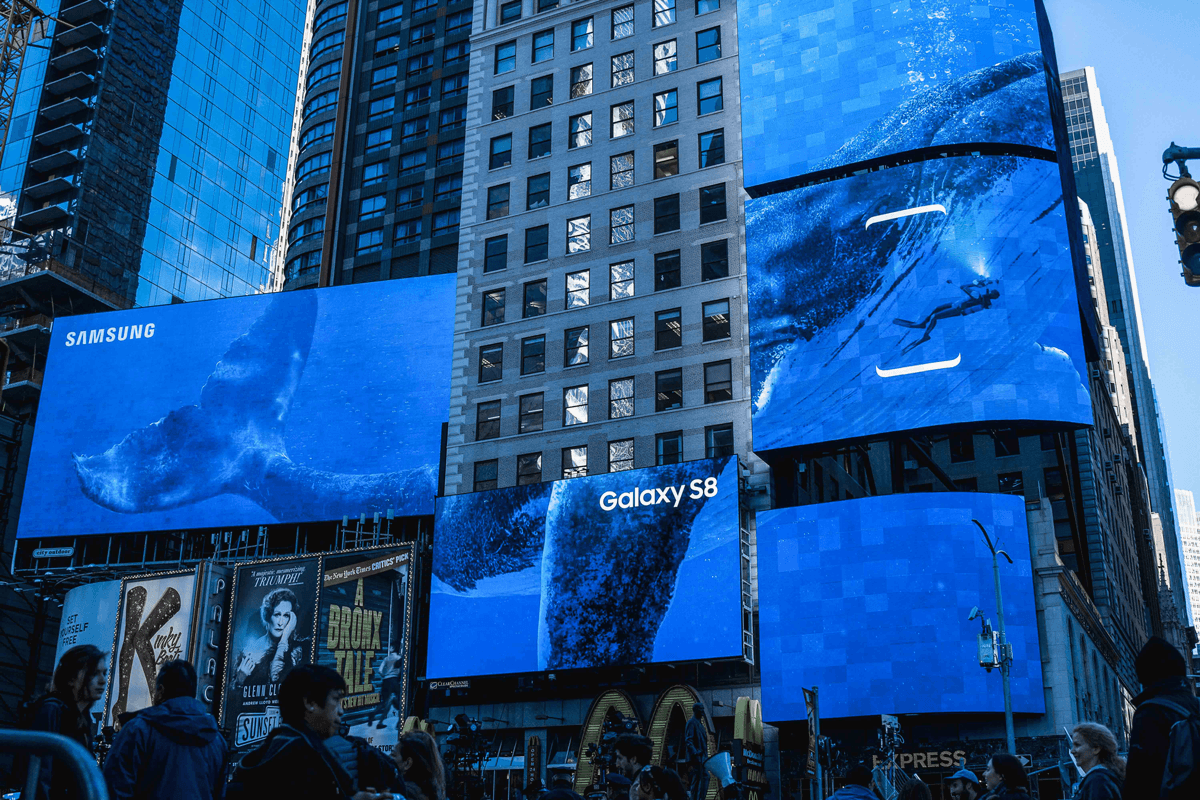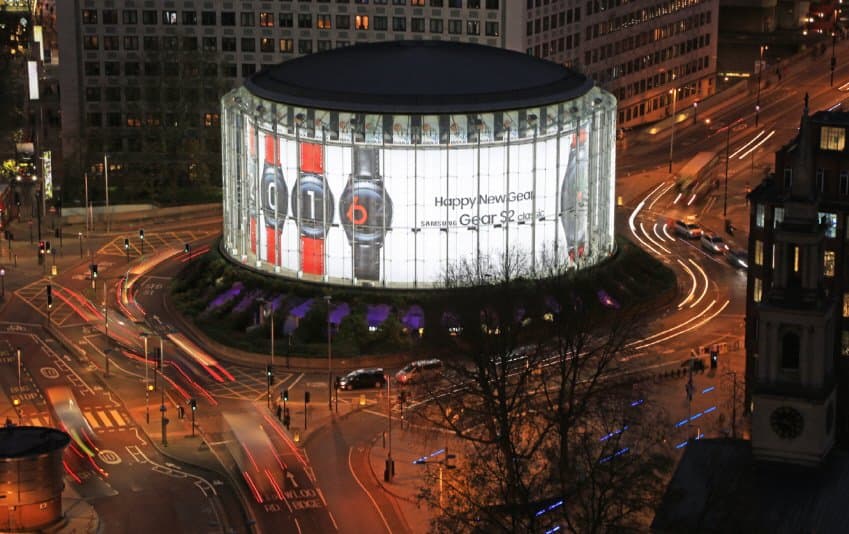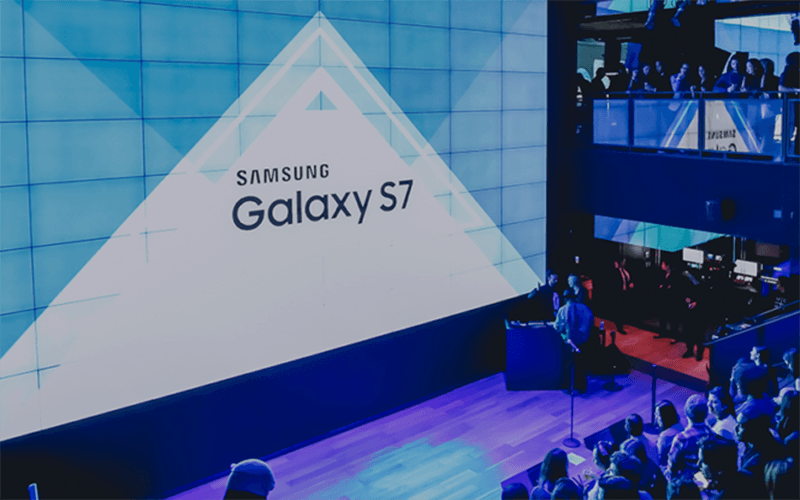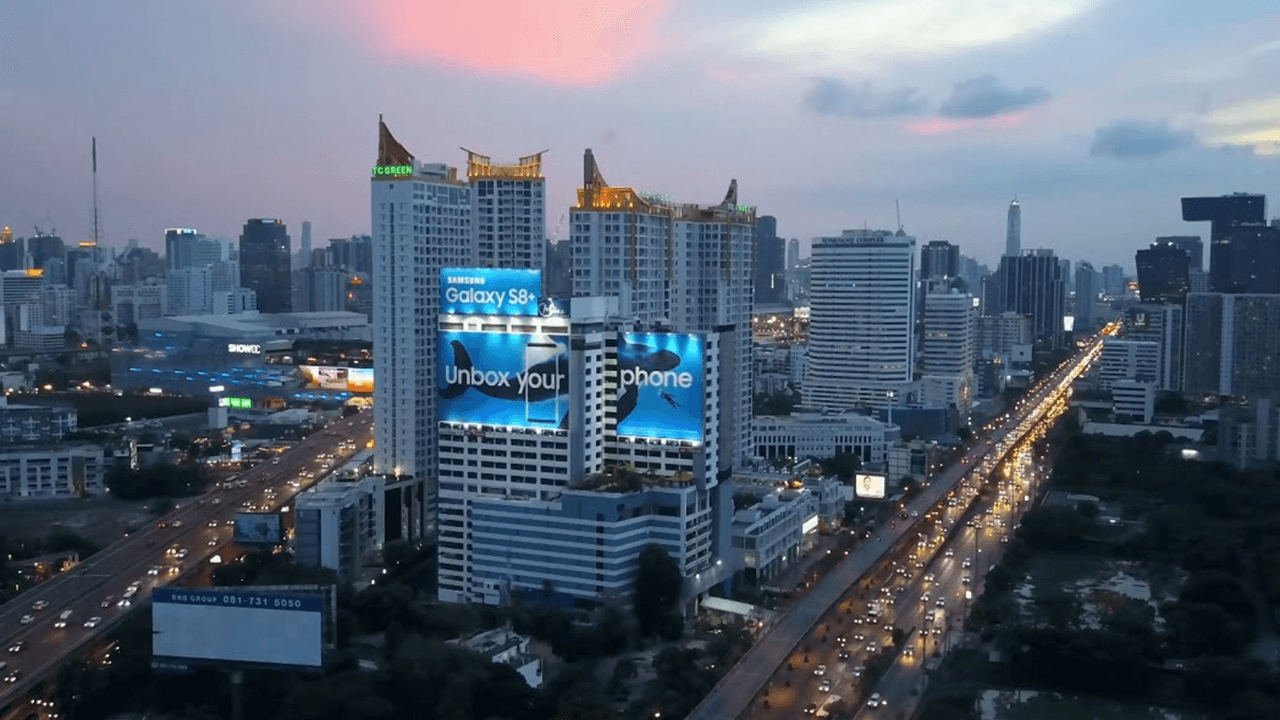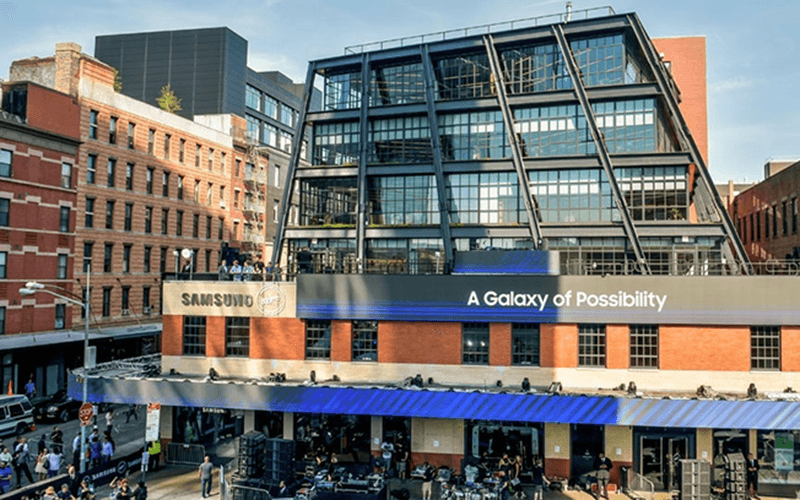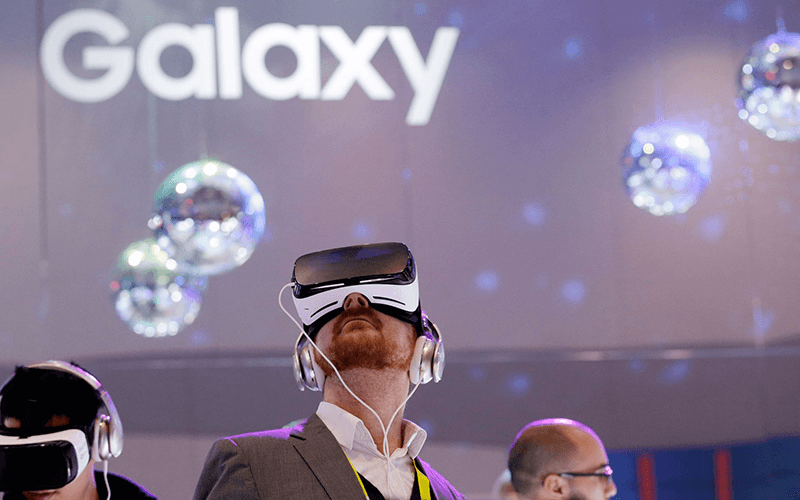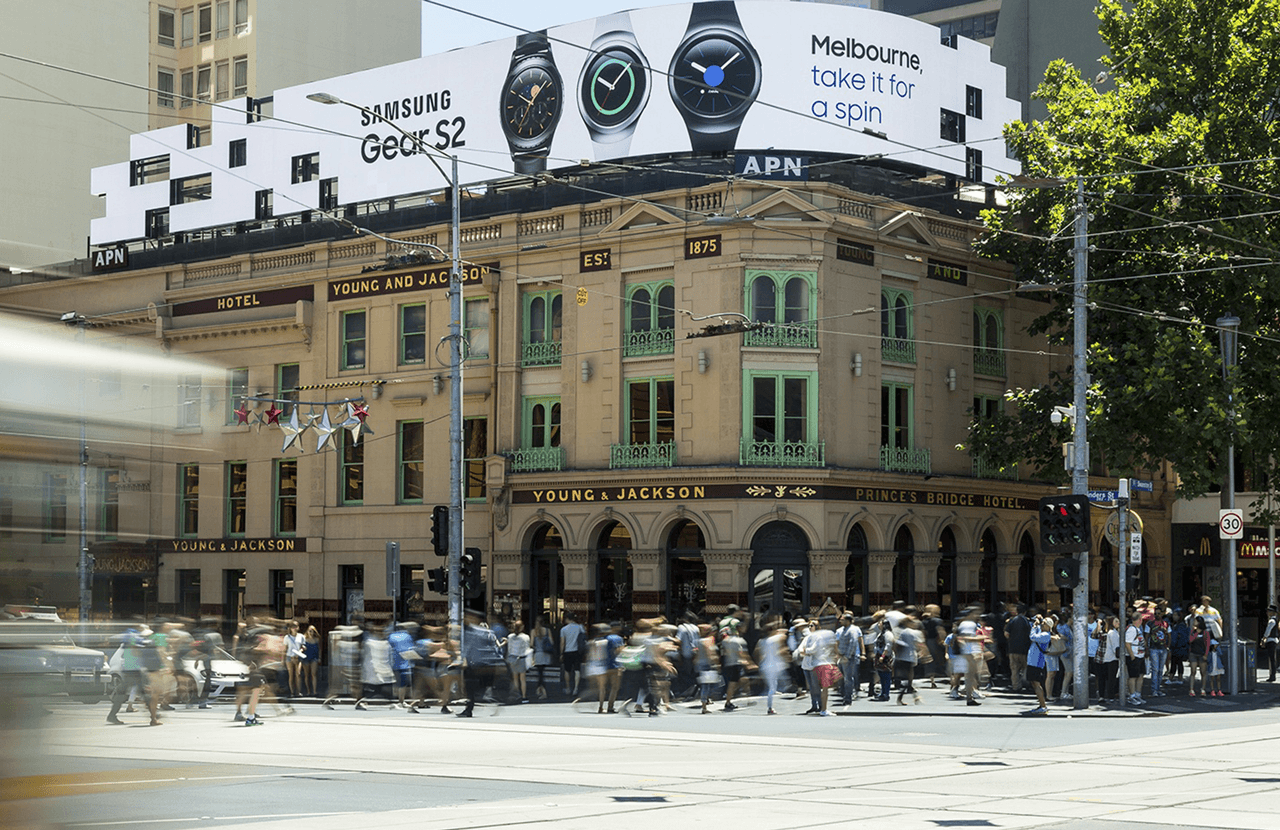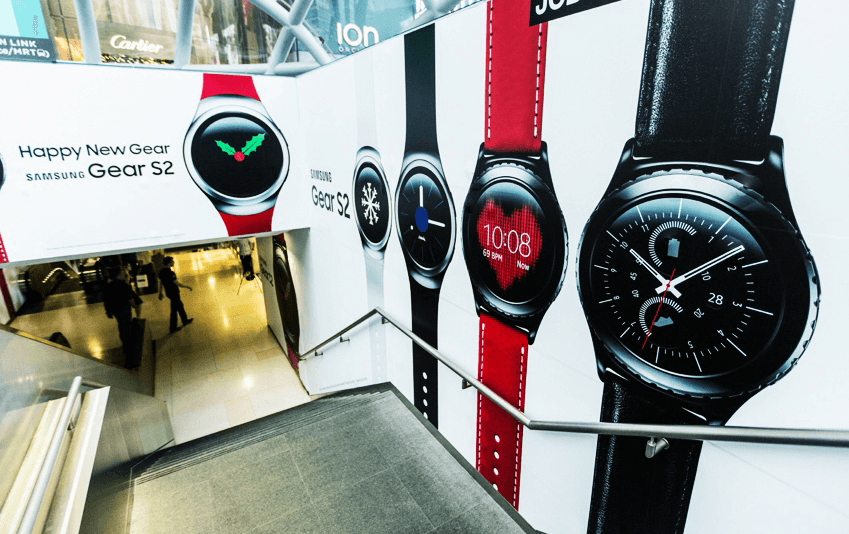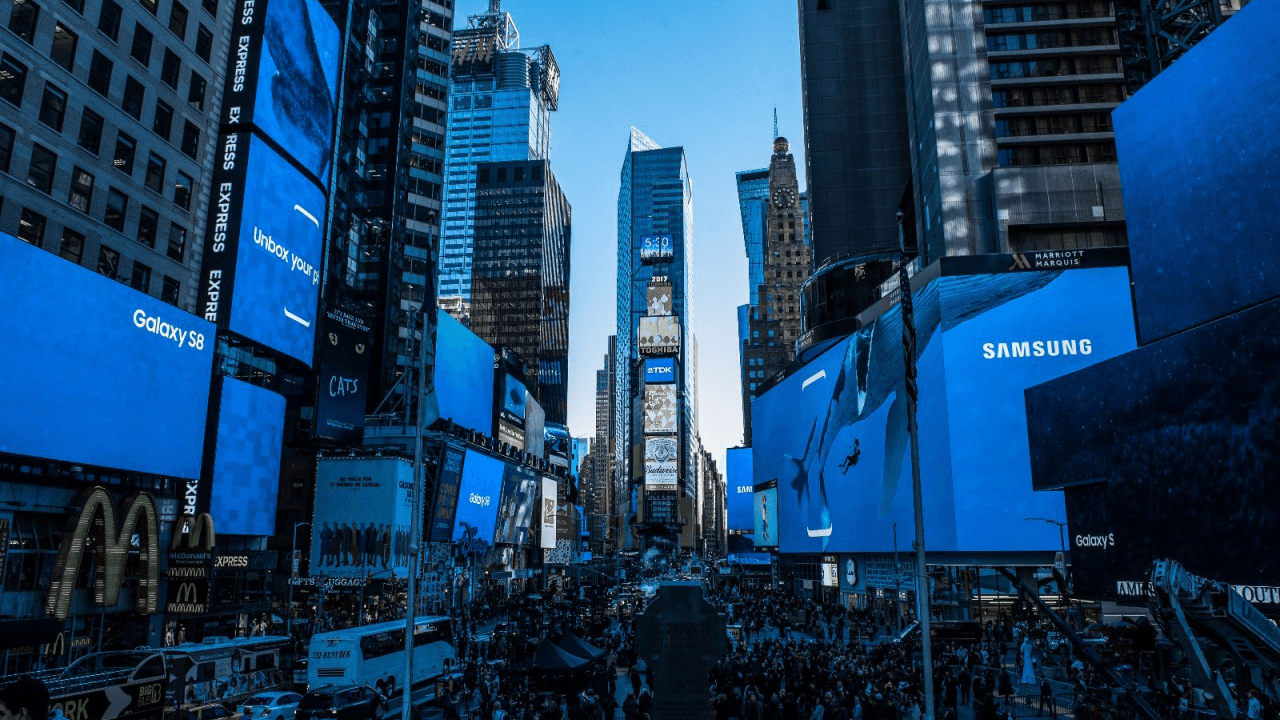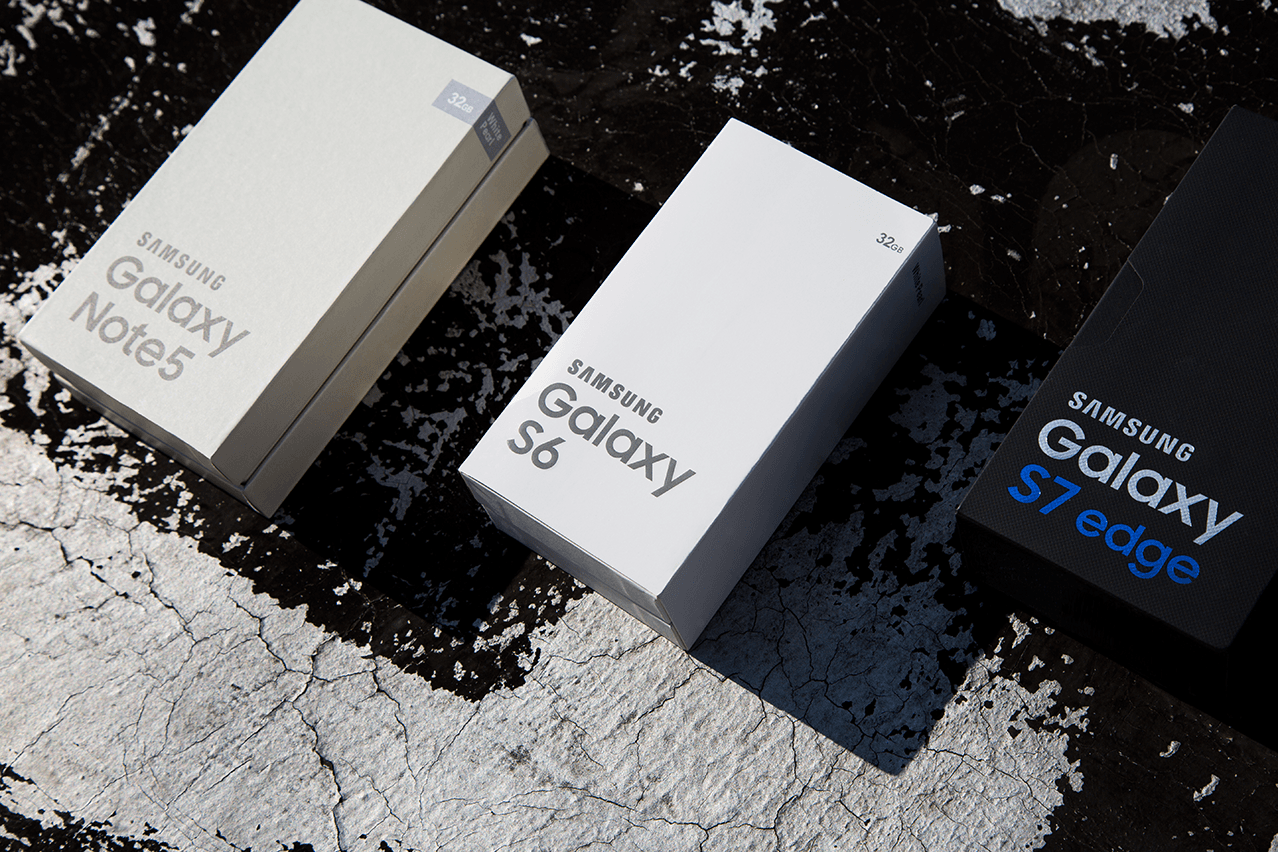
Samsung Sharp Sans
Samsung commissioned a custom version of Sharp Sans Display No.1 called "Samsung Sharp Sans" to use as their primary typeface for all branding materials, out-of-home advertising, and broadcasts.
Unbox Your Phone
Gear S2
Samsung Chelsea Flagship
Samsung Phone Packaging
Go With Galaxy